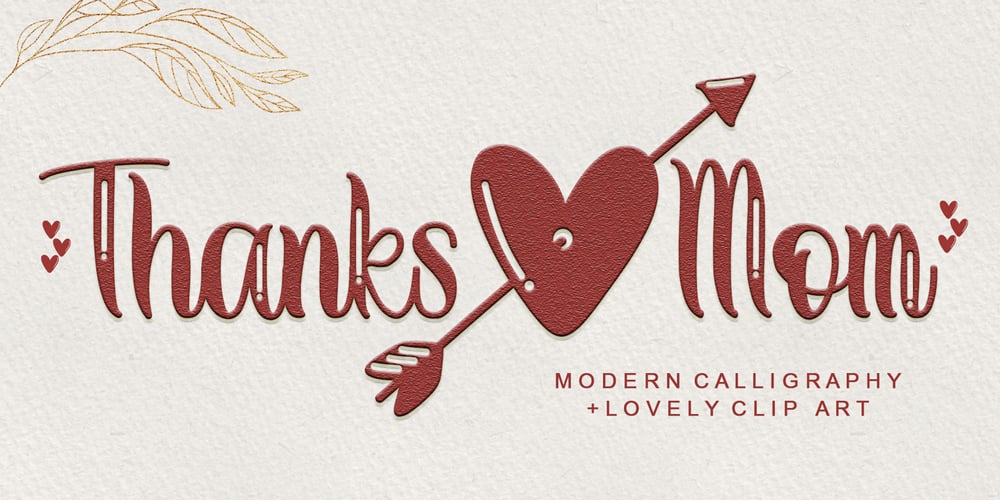
Thanks Mom Font Family was designed by Ahmad Afandi and published by Letterafandi Studio. Thanks Mom contains 1 styles and family package options. Thanks Mom is a delicate and elegant handwritten font. Its distinct and well balanced letters make this font a masterpiece.Thanks Mom is PUA encoded which means you can access all of the glyphs and swashes with ease!